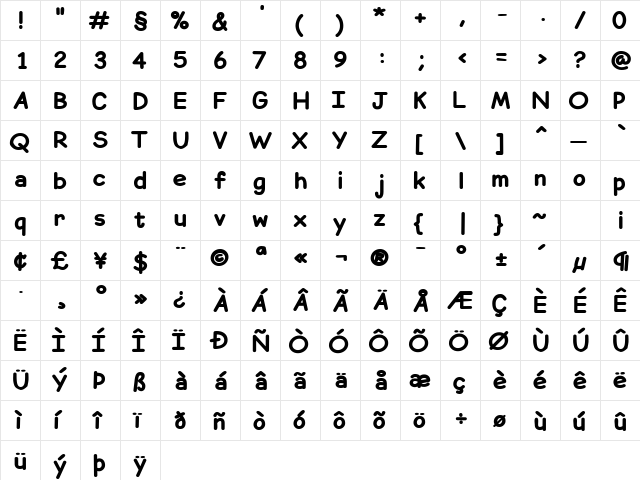
SimDialogue bold
| Designer | Ethan Dunham |
Design Context for SimDialogue Typeface
SimDialogue takes a measured approach to typography — its balanced proportions and neutral character make it a reliable workhorse for both digital and print work. Its bold stroke weight gives it real presence on the page.